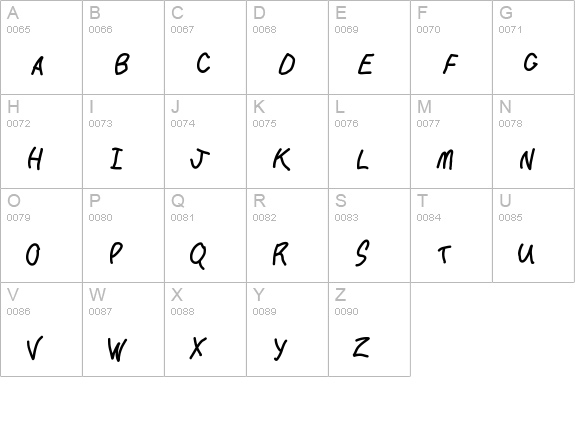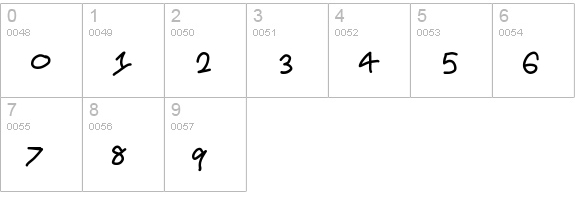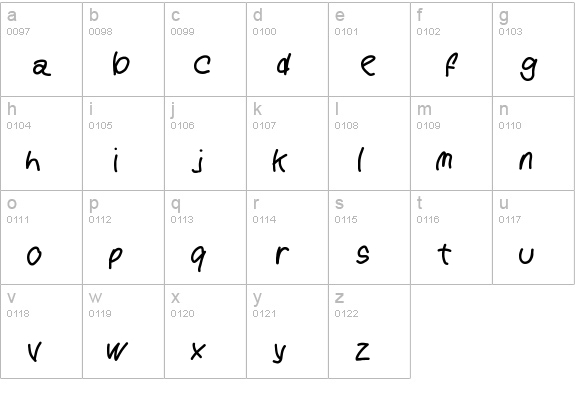
Scute Font Details
Scute font is a charming and elegant typeface that exudes sophistication and style. With its delicate curves and graceful lines, Scute is perfect for adding a touch of class to any project. Whether you're designing a wedding invitation, creating a logo for a high-end brand, or crafting a stylish poster, Scute will elevate your design to the next level.